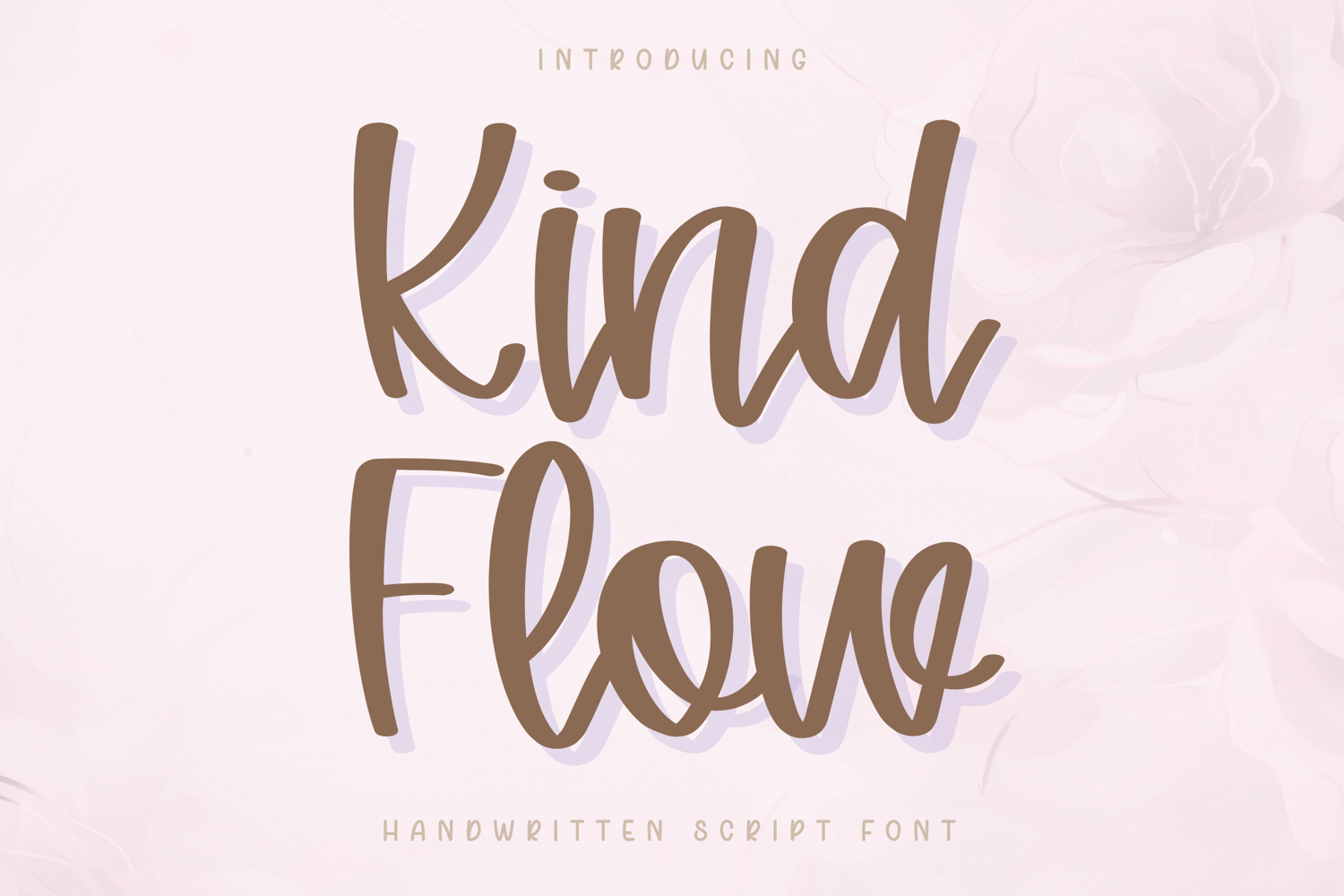
Kind Flow - Handwritten Script Font
Kind Flow – Handwritten Script Font
Kind Flow is a soft and elegant handwritten script font designed to bring a graceful and natural feel to your creative projects. With its smooth curves and flowing letterforms, this font creates a refined handwritten style while maintaining excellent clarity and readability.
Carefully crafted for versatility, Kind Flow works beautifully across a wide range of applications—from branding and logo design to Cricut cutting projects, digital planners, and social media content. Its clean and consistent strokes ensure smooth results for both writing and cutting, making it ideal for everyday creative use.
Full set of uppercase and lowercase letters
Numerals, punctuation, and symbols
Kind Flow is designed with smooth, flowing strokes and balanced spacing, making it easy to use for both beginners and professional designers.